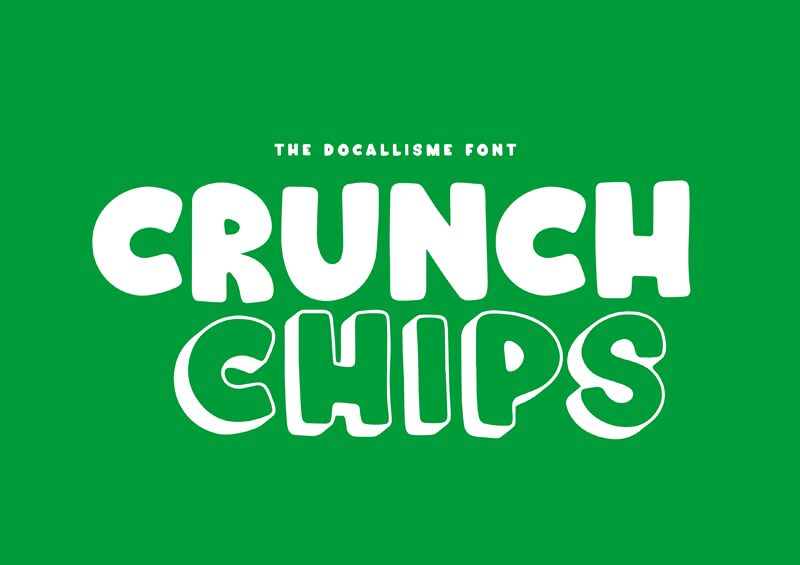
Crunch Chips leaps off the page with its playful and bold cartoon style, a testament to the creative flair of The Docallisme - Amry Al Mursalaat. This display font boasts an extra-bold weight that captures attention and exudes cheerfulness. Its rounded forms and soft edges evoke a sense of fun, making it an ideal choice for projects that aim to entertain or engage with a youthful audience.
The lively character of Crunch Chips makes it perfect for titles, logos, and any design work where a touch of whimsy is desired. The typeface's substantial body ensures excellent readability at larger sizes, while its distinctive style adds personality to branding, product packaging, or advertising campaigns aimed at bringing a smile to the viewer's face.